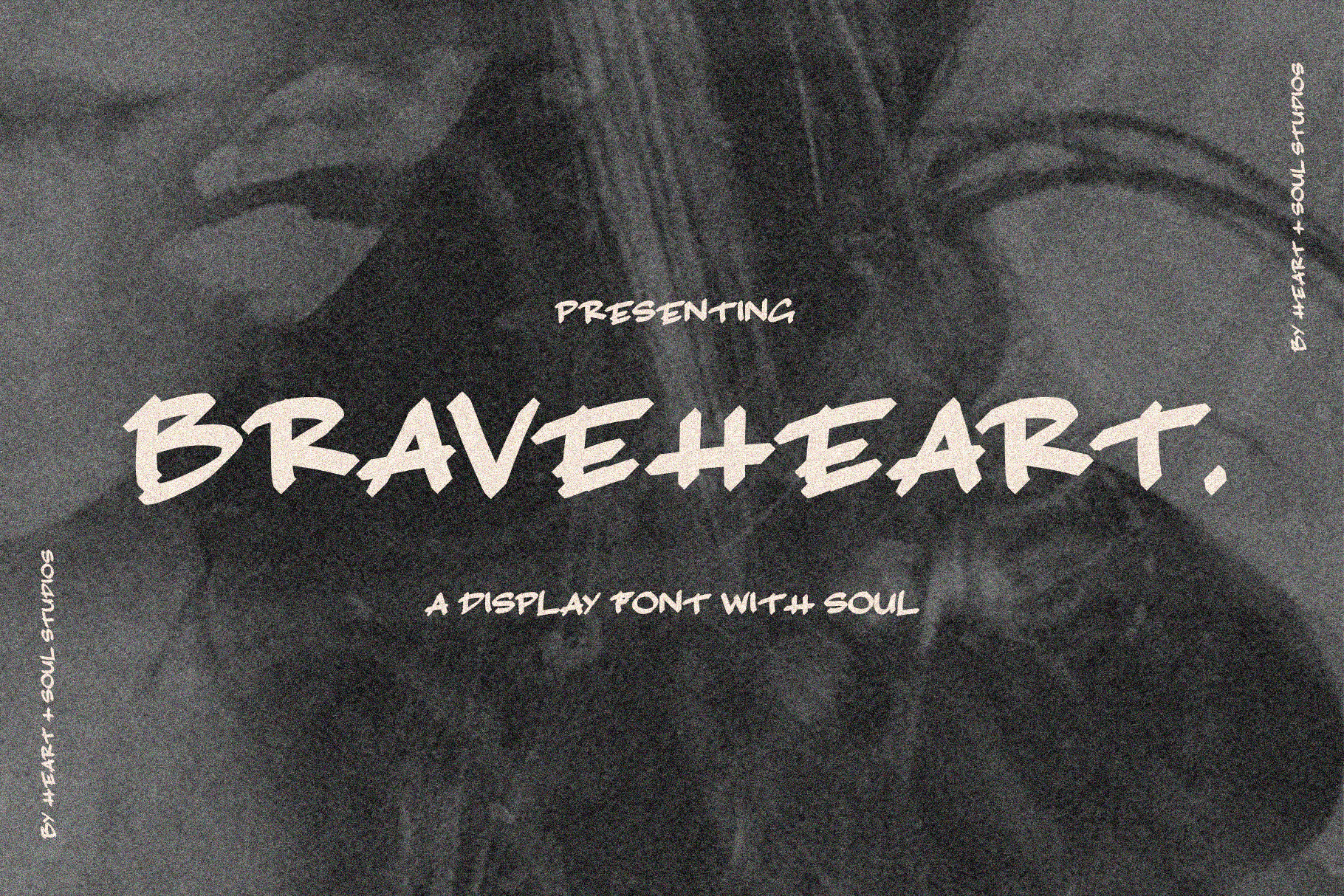
BRAVEHEART | a soulful display font
Welcome, BRAVEHEART – a hand-scribed, marker-style display font.
Inspired by the ones (and The One) willing to lay down their lives for Truth and freedom, Braveheart was designed to make a statement: BOLD. FEARLESS. FREE.
For the one willing.
John 15:13